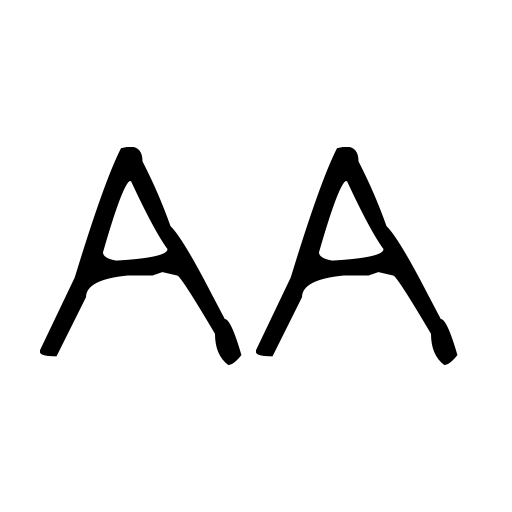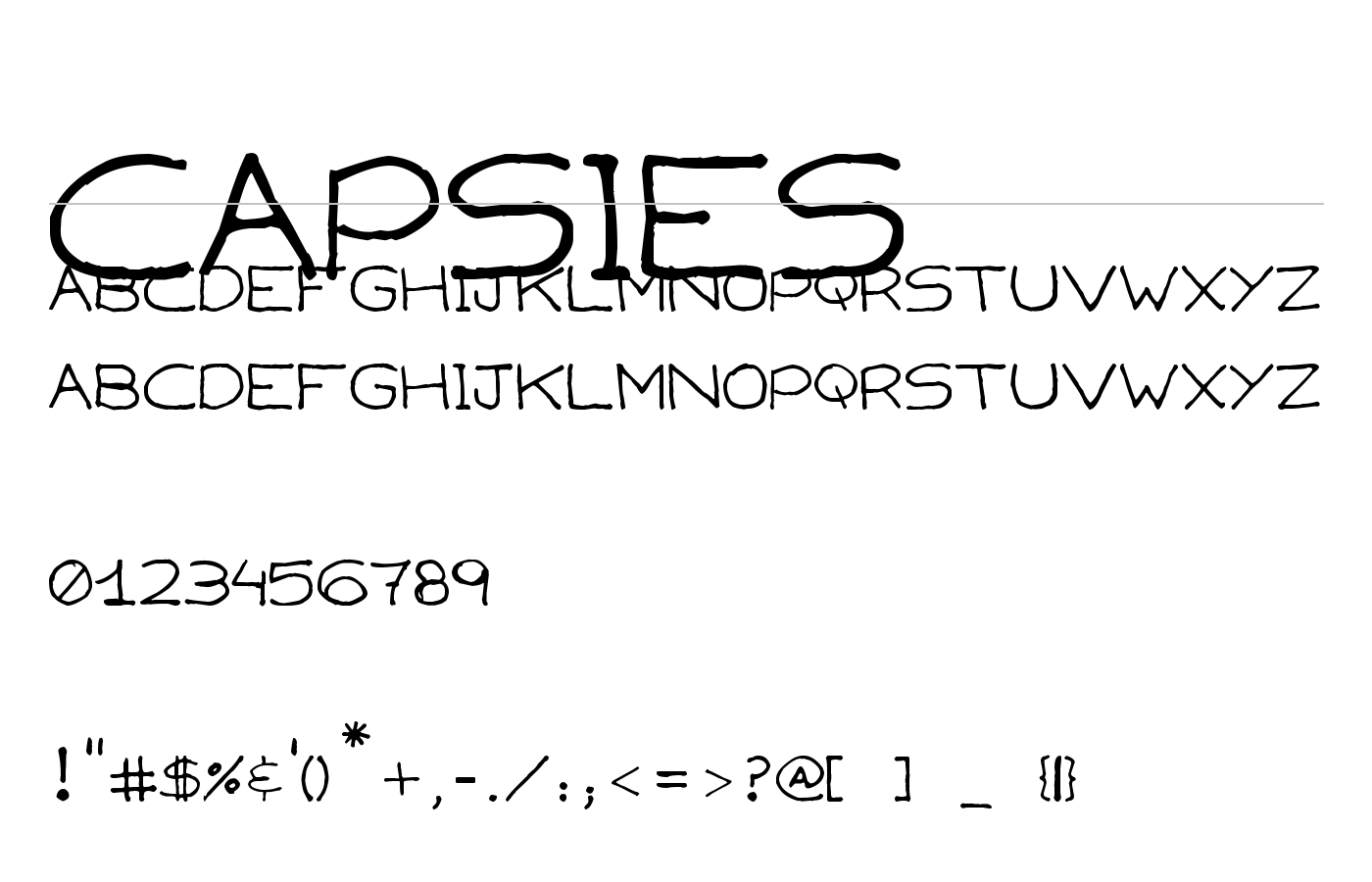
Capsies is a playful, hand-drawn sans serif font characterized by its irregular, slightly wobbly lines and tall, narrow letterforms. Its casual, whimsical style works well for creative projects, informal branding, and fun editorial designs where a personal, approachable feel is desired. This font shines in headlines and titles that seek a quirky, artistic vibe without sacrificing legibility.
Capsies Font